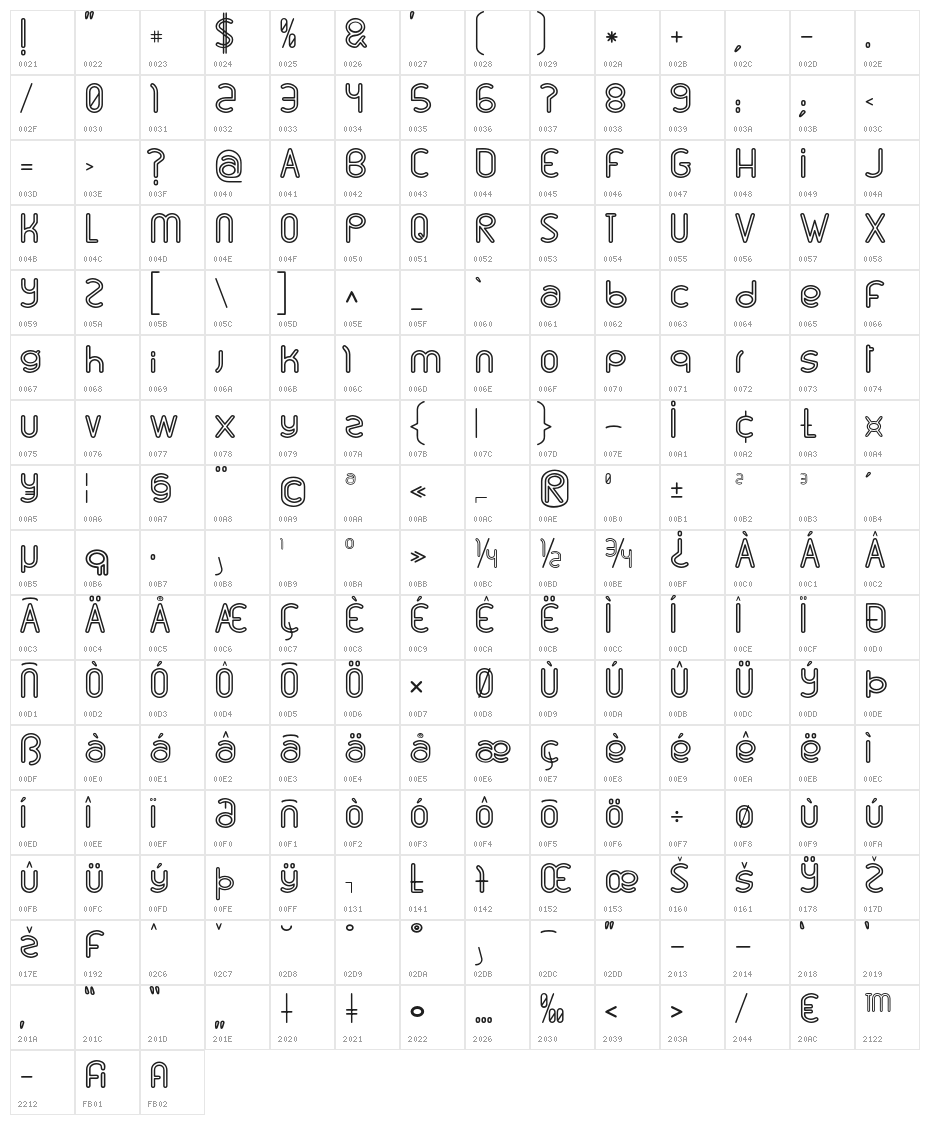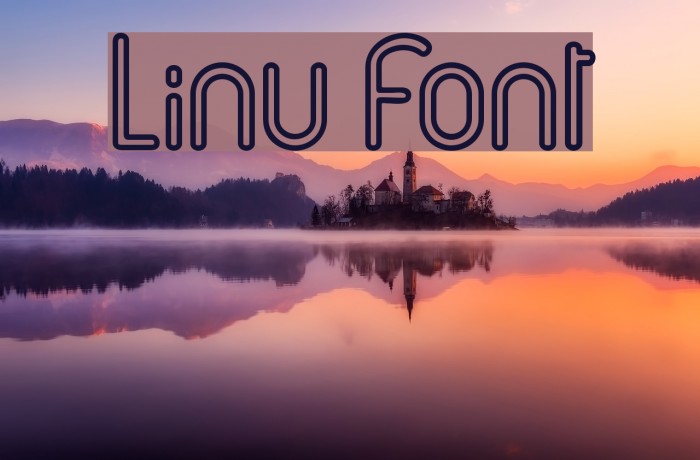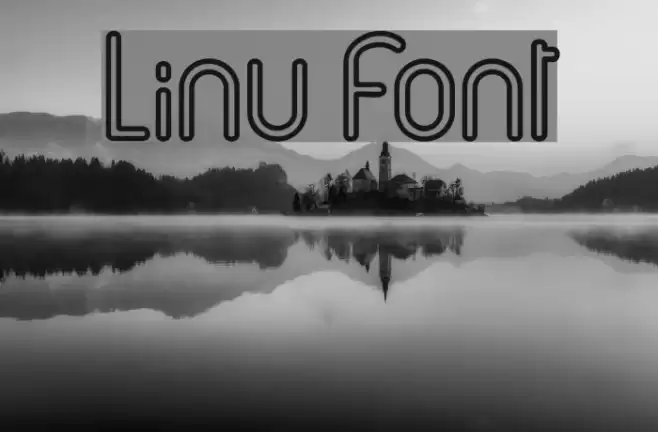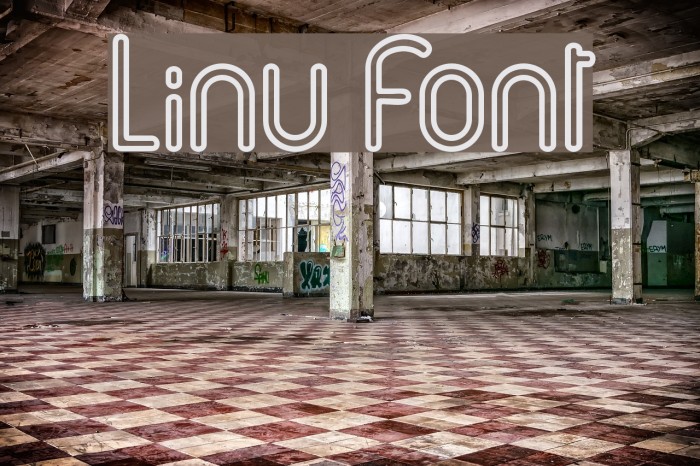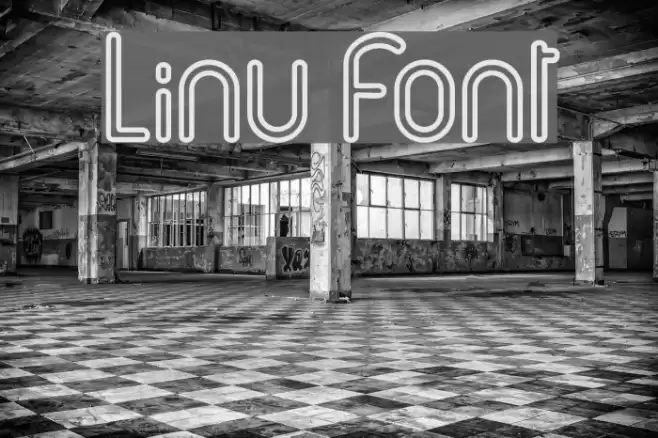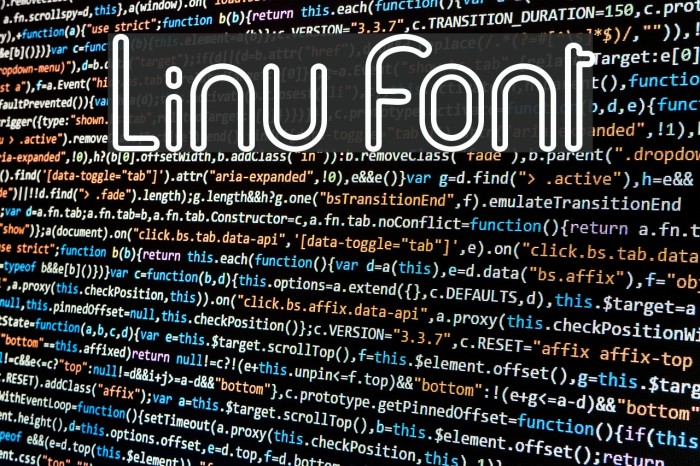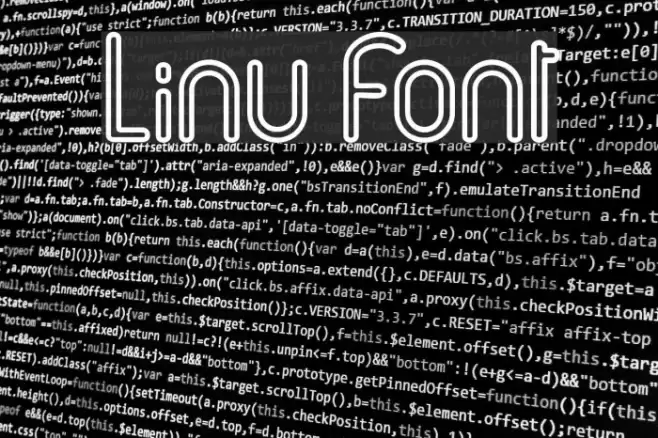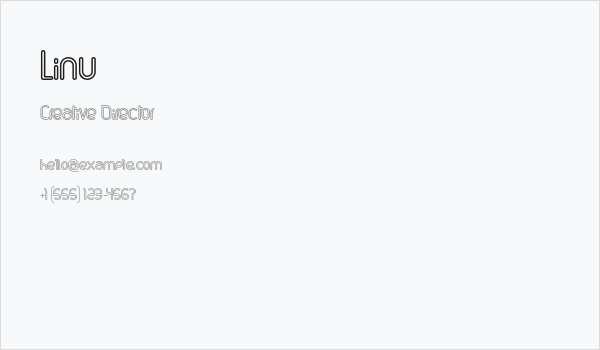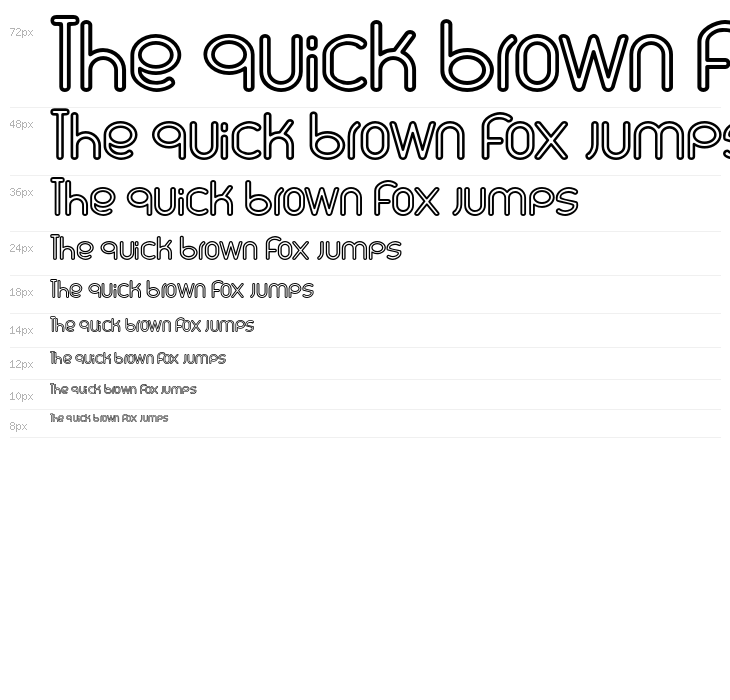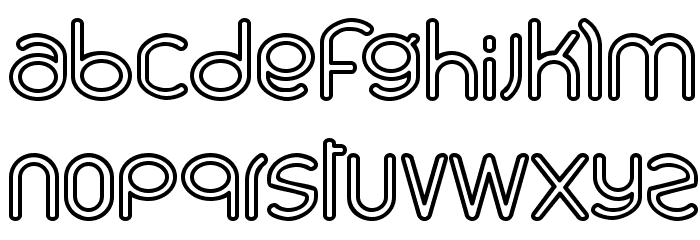
Linu Font
Linu Description
This font features a unique, modern design with a hollow, outline style that gives it a distinct and futuristic appearance. The characters are uniformly structured with rounded edges, creating a smooth and fluid look. The uppercase and lowercase letters maintain a consistent style, with the lowercase letters mirroring the uppercase in form but with a smaller size. The numerals and special characters follow the same design principles, ensuring a cohesive appearance across all glyphs. This font's open and airy design makes it stand out, while its geometric shapes provide a sense of balance and harmony.